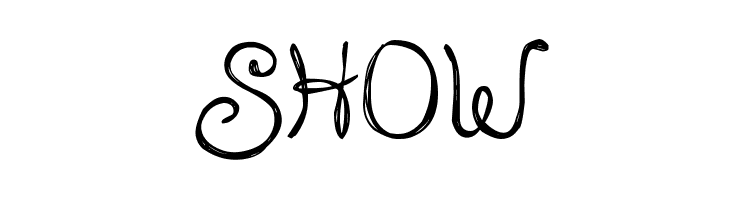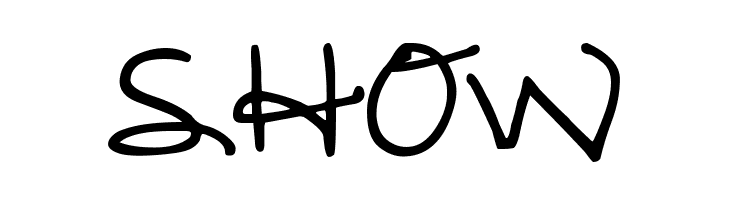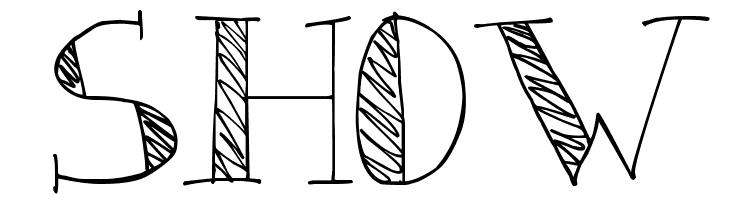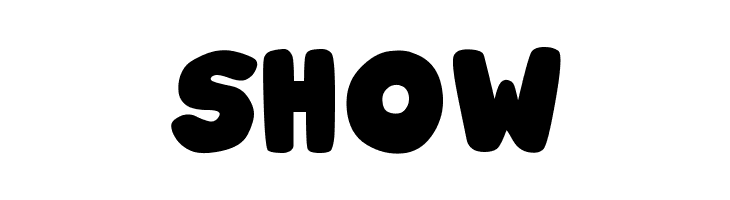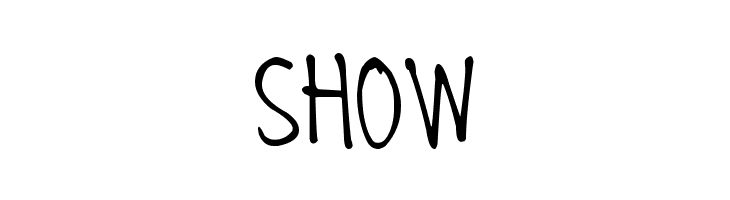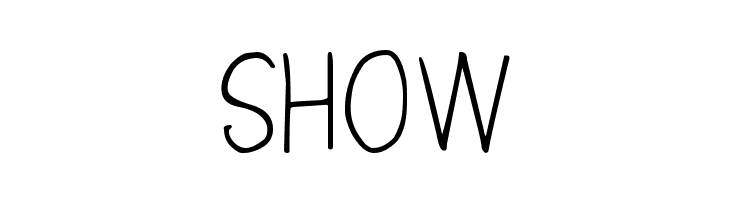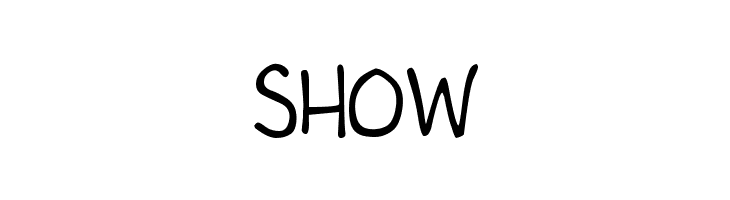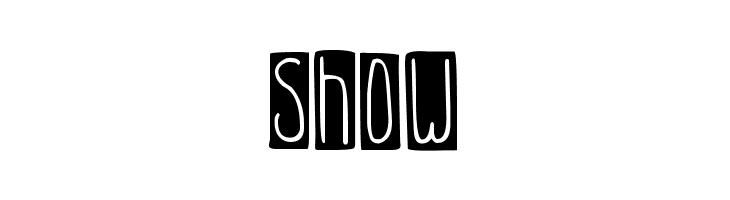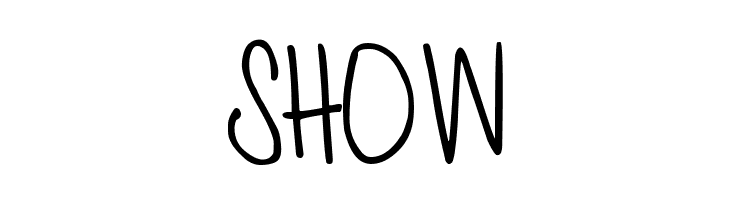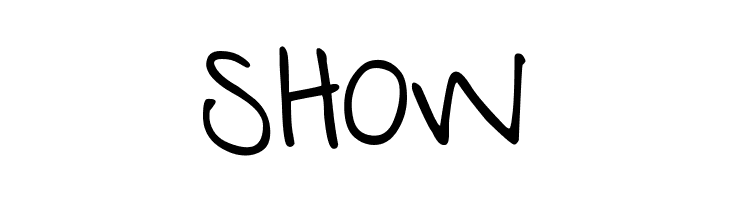
• DJB How Cute Am I
A playful handwritten font with a casual, friendly appearance.
• DJB Hunky Chunk Bold
A bold, playful font with rounded, chunky letters and a whimsical style.
• DJB I Love a Ginger
A whimsical, hand-drawn font with playful, irregular lines.
• DJB I Love Me Some Aly
A playful handwritten font with a casual and friendly vibe.
• DJB I Love Me Some Brook
A playful, casual handwritten font with smooth, flowing lines and a slightly slanted style.
• DJB Im No Wizard
A whimsical, hand-drawn font with a magical, playful style.
• DJB In Such a Rush
A lively, handwritten font with a spontaneous and informal style.
• DJB Jacked Up Kinda Luv
A playful, handwritten font with whimsical embellishments and dynamic strokes.
• DJB Just an Outty
A playful, hand-drawn outlined font with a whimsical and casual style.
• DJB Lemon Head
A playful, hand-drawn font with tall, narrow characters and a whimsical style.
• DJB Lemon Head Blocked Bold
A bold, hand-drawn font with whimsical characters enclosed in rectangular blocks.
• DJB Lemon Head Bold
A playful, bold font with rounded, thick strokes and a whimsical touch.
• DJB Lemon Head Outlined
A playful, hand-drawn font with outlined characters in a whimsical style.
• DJB LENA
A playful, handwritten font with a casual and approachable style.
• DJB Letter Game Tiles
A playful font styled like letter tiles from a word game, featuring bold characters within bordered squares.
• DJB Letter Game Tiles 2
A playful, tile-based font inspired by classic word games.
• DJB Letter Game Tiles 3
A playful, game-inspired font with characters on square tiles.
• DJB Little Black Dress
A playful, bold handwritten font with a casual and creative vibe.
• DJB LIZ
A playful, casual handwritten font with a lively and dynamic style.
• DJB Me and My Shadow